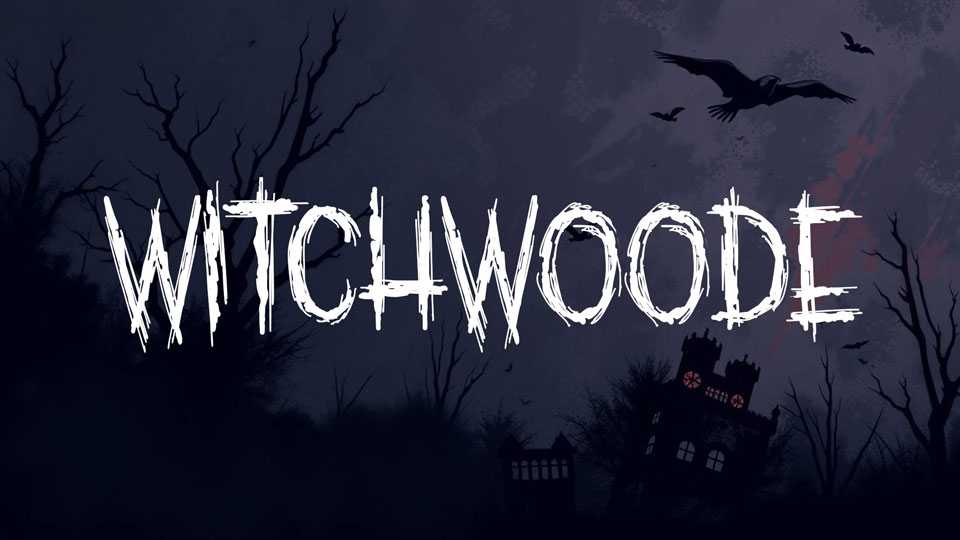
Download Witchwoode font, a rustic, hand-drawn horror typeface with strokes that resemble twisted branches and clawed etchings. Its jagged, organic shapes bring the feeling of dark forests, ancient spells, and eerie folklore to life.